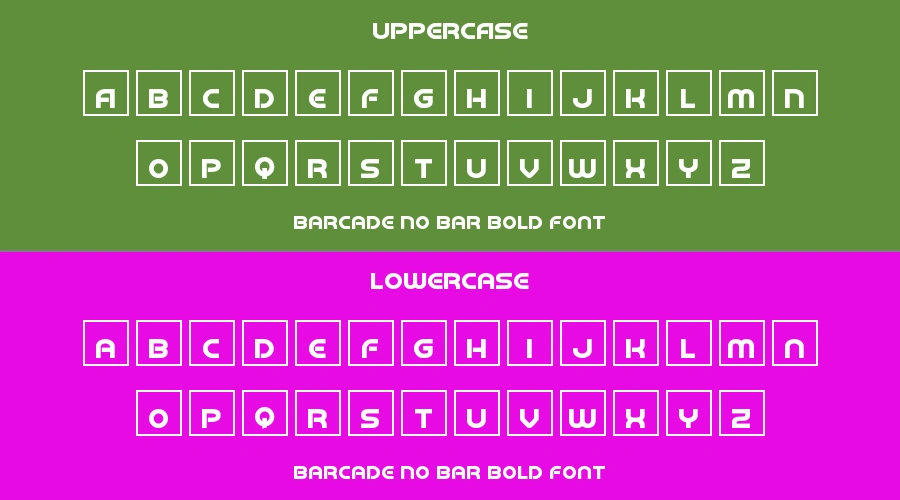
About Barcade No Bar Bold Font
Barcade No Bar Bold Font embodies typographic excellence through its masterful combination of fluid motion and adaptability. Created for social media content, this typeface delivers exceptional originality and industry recognition across all applications. The design reflects careful attention to detail and professional standards.
Advanced capabilities include distinctive architectural precision and versatile authentic details, giving designers creative control. When used in compliance seals, Barcade No Bar Bold Font exhibits remarkable microfilm readability. The harmonious balance between character width and technical innovation sets this typeface apart.